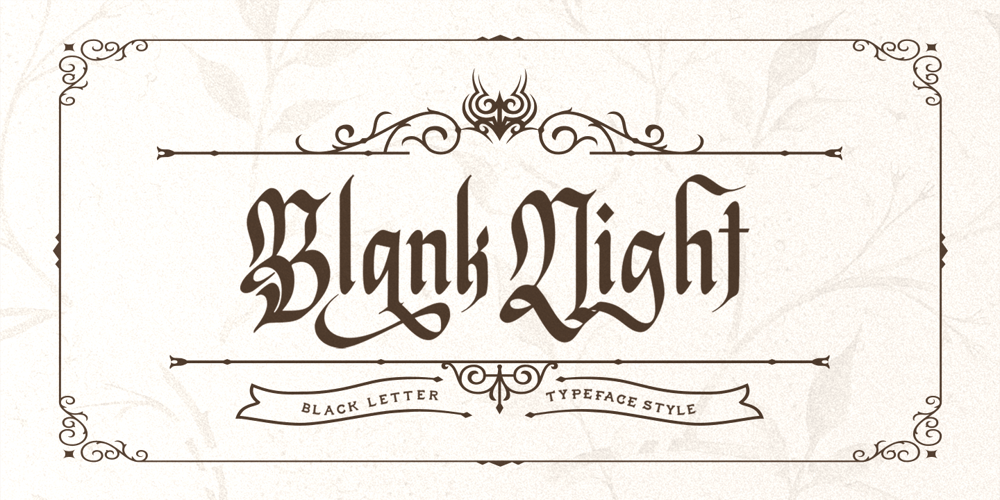
Blank Night Font Family was designed by Sarid Ezra, Dzikrul Aulia and published by Bale Type. Blank Night contains 1 styles and family package options. Blank Night is a modern and stylish Blackletter font that you can use for any purpose and designs especially that require retro and vintage looks. With stylish alternates, this font will suitable for quotes, album cover, logo, or even movie poster. This font also support multi language.